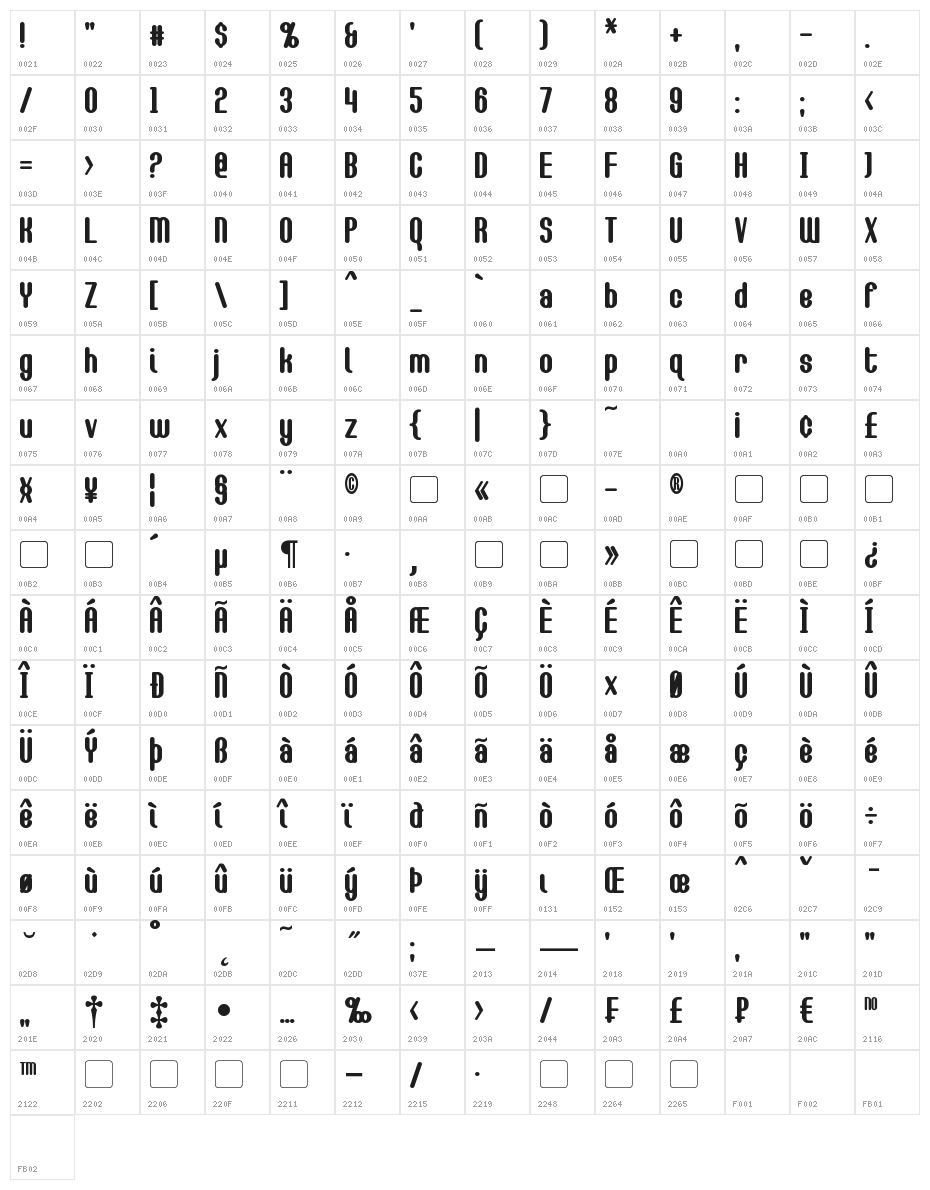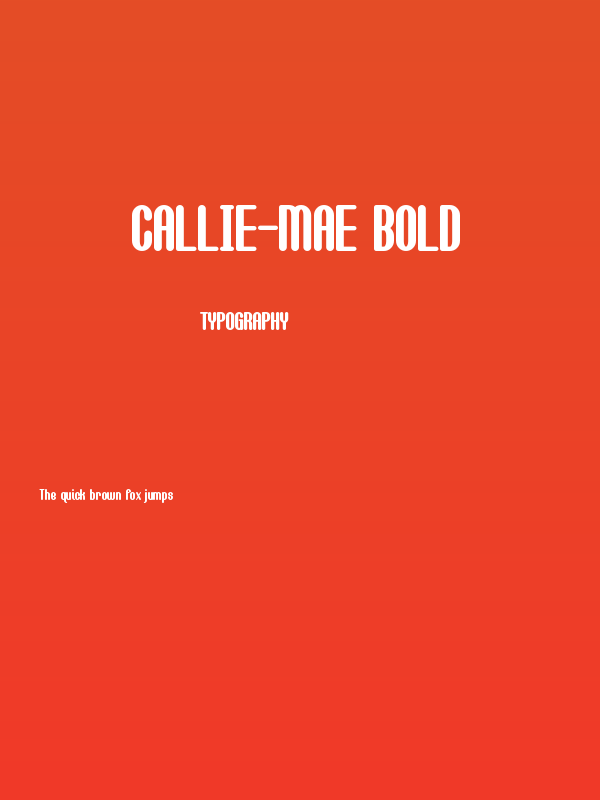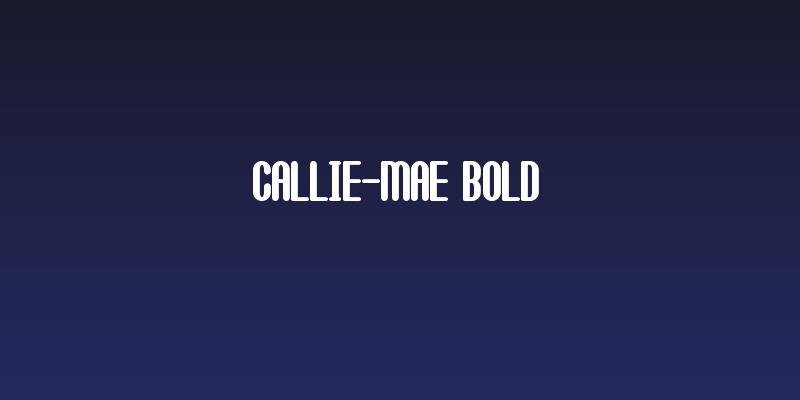
Callie-Mae Bold Font
Callie-Mae Bold Description
This font features a bold and rounded style with a playful and modern aesthetic. The characters are uniformly thick, giving them a strong presence on the page. The rounded edges soften the overall look, making it approachable and friendly. The uppercase and lowercase letters maintain consistent proportions, ensuring readability. Numbers and special characters are designed with the same boldness and rounded form, creating a cohesive appearance across all elements. This font is ideal for projects that require a bold statement while maintaining a casual and inviting tone.
| Proposed Projects | Ideal for branding, posters, headlines, and social media graphics. |